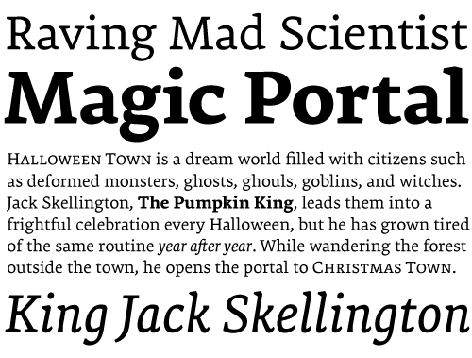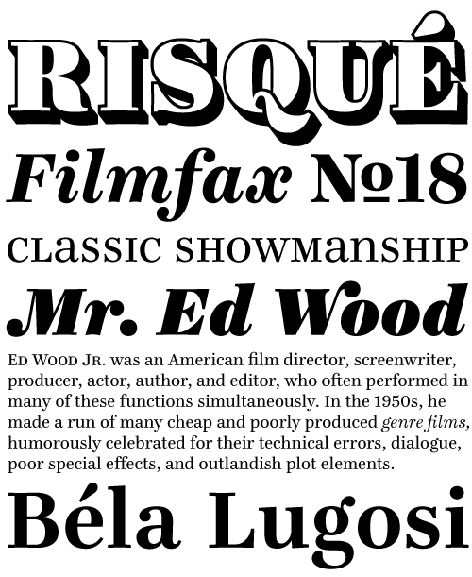
These two new typefaces are thoughtfully designed. Premiéra was created with small sizes in mind; Ingeborg is a Modern face that's readable at any size.
Premiéra
Premiéra is a typeface specifically designed to work in small sizes. A large x-height and short ascenders and descenders make it ideal for books and newspapers. Through an exhaustive process of testing readability on test prints, the face developed straight lines and sharp forms. These features not only work to make the type clear, but also give Premiéra a strong personality whether you read it in text or headlines.
Ingeborg
The Modern typeface classification is usually associated with Didones and display faces that often have too much contrast for text use. The Ingeborg family was designed with the intent of producing a Modern face that was readable at any size. Its roots might well be historic, but its approach is very contemporary. The three text weights (Regular, Bold, and Heavy) are functional and discreet while the Display weights (Fat and Block) catch the reader’s eye with a dynamic form and a whole lot of ink on the paper. The family includes a boatload of extras like unicase alternates, swash caps, and a lined fill.